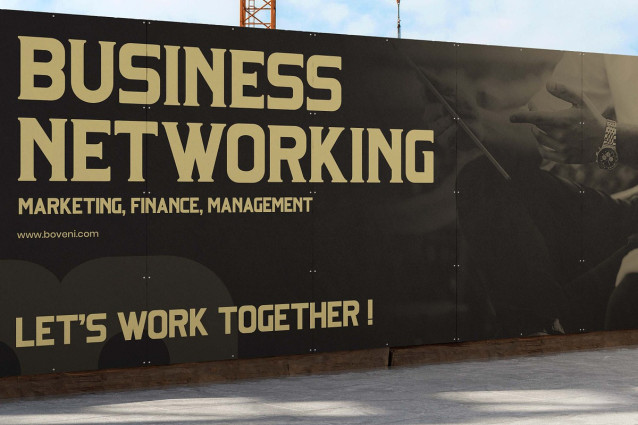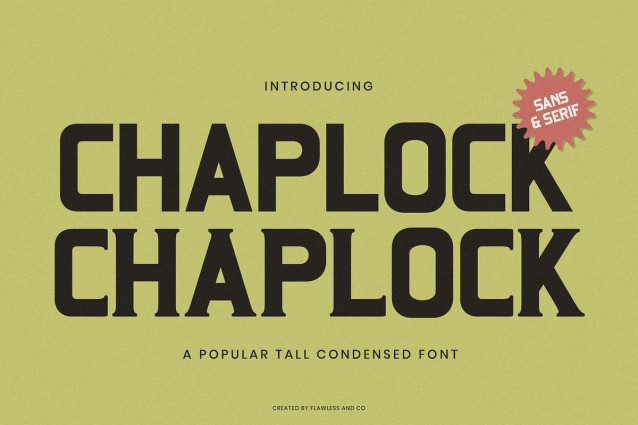
Chaplock Font
Chaplock Font is a striking typeface that blends the bold energy of condensed sans serif and the timeless style of serif details into one powerful package. Designed for maximum impact, Chaplock features ultra-narrow letterforms with sharp precision and modern flair, making it perfect for commanding attention in any layout. With its tall structure, minimal spacing, and sleek geometric lines, Chaplock is made for editorial headlines, poster designs, branding, and logotypes that need to look bold, stylish, and unmistakably strong. The font family combines the clean edge of sans serif with subtle classic touches, giving your typography a unique and confident personality. Whether you’re designing for streetwear, sports, fashion campaigns, or bold visual identities, Chaplock delivers an intense typographic presence that’s hard to ignore.